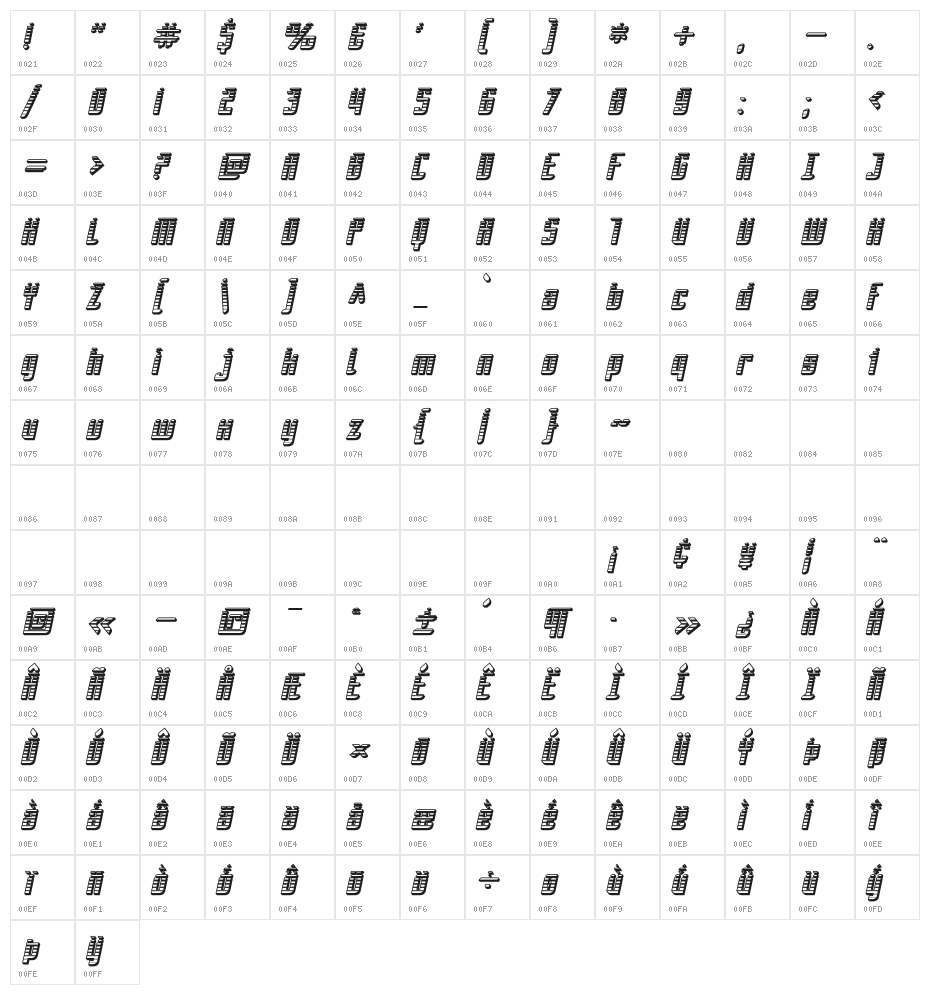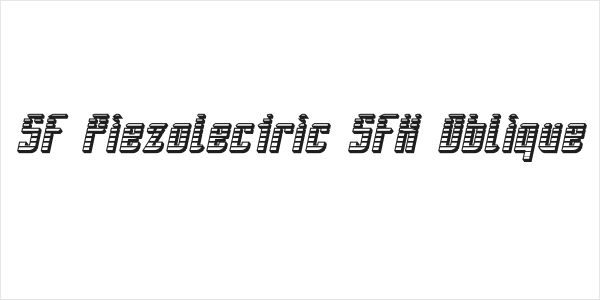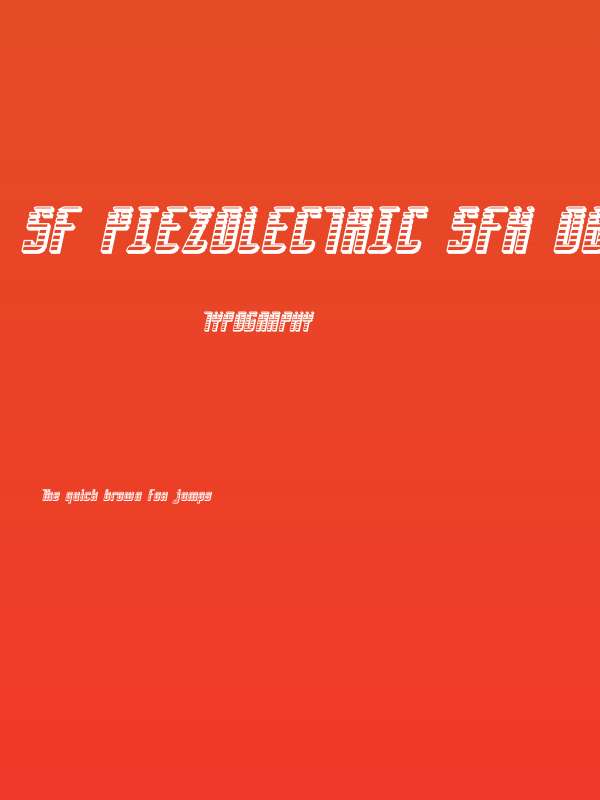
SF Piezolectric SFX Oblique Font
SF Piezolectric SFX Oblique Description
This font features a bold, futuristic design with a distinct oblique slant, giving it a dynamic and energetic appearance. The characters are constructed with a striped pattern, adding depth and a three-dimensional effect. The uppercase and lowercase letters maintain a consistent style, with sharp angles and a mechanical feel. Numbers and special characters follow the same design principles, ensuring uniformity across all glyphs. The font's unique style makes it stand out, suitable for projects that require a modern and edgy look.
| Overall Style | Futuristic, Modern |
| Proposed Projects | Ideal for sci-fi themed designs, video game titles, tech branding, and futuristic posters. |